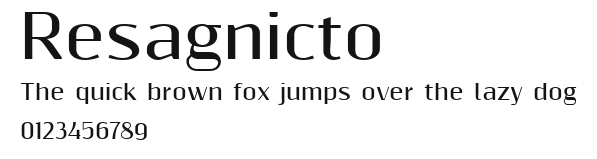
Resagnicto Preview
• Font Name: Resagnicto
• Full Font Name: ResagnictoBold
About Resagnicto.ttf
Resagnicto.ttf is a modern, elegant sans-serif font designed for ultimate readability and visual harmony. Perfect for branding, headlines, web design, and print materials.